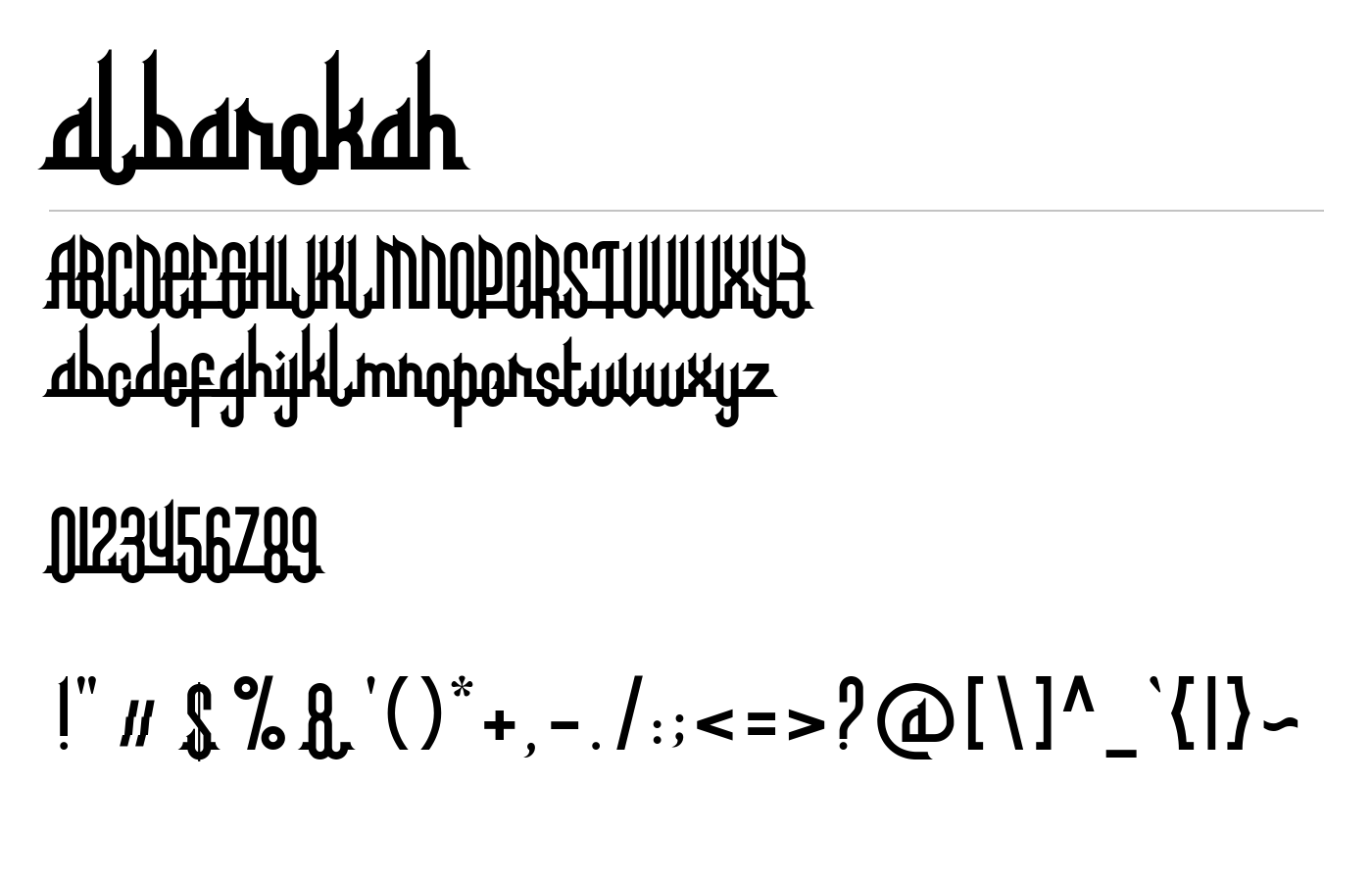
Albarokah is a distinctive serif font with a bold, condensed design and high stroke contrast that gives it a strong, dramatic presence. Its unique, angular forms and sharp serifs suggest a modern yet gothic-inspired style, making it ideal for eye-catching headlines, logos, and creative branding that seeks an edgy, sophisticated vibe. This font works best where bold individuality and artistic flair are desired, such as in fashion, posters, or editorial titles.
albarokah Font
About albarokah Font